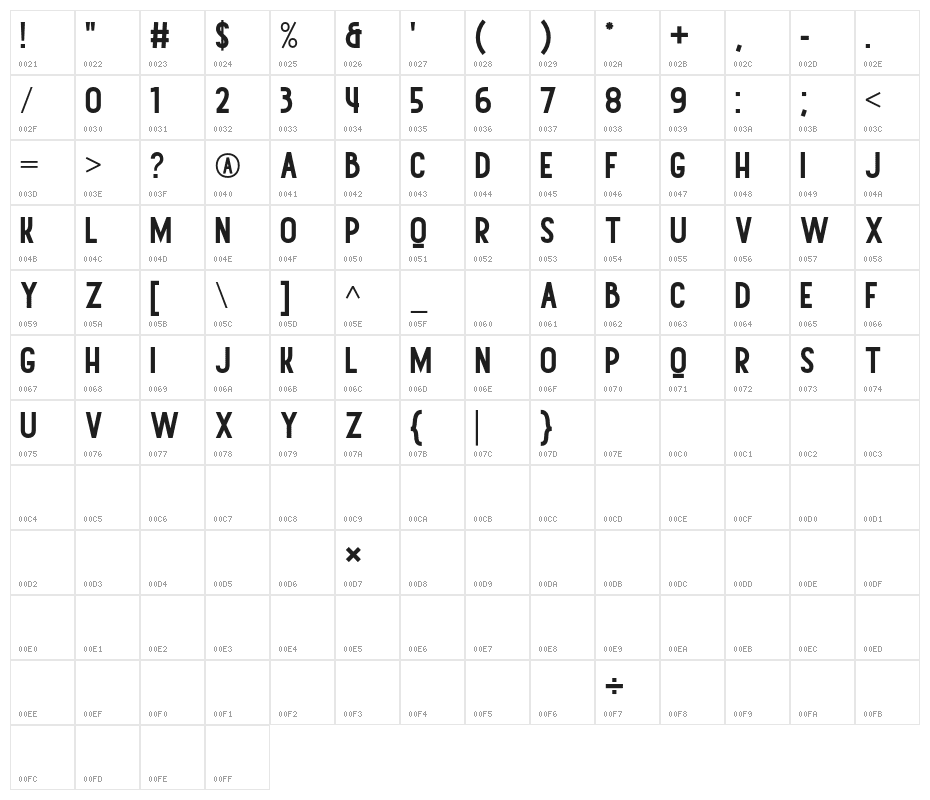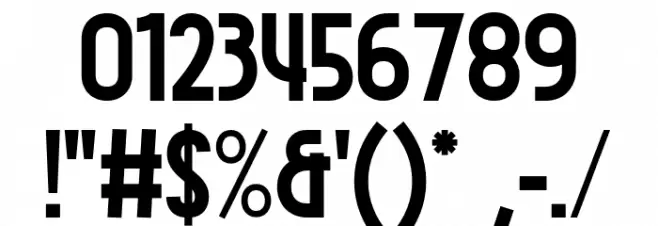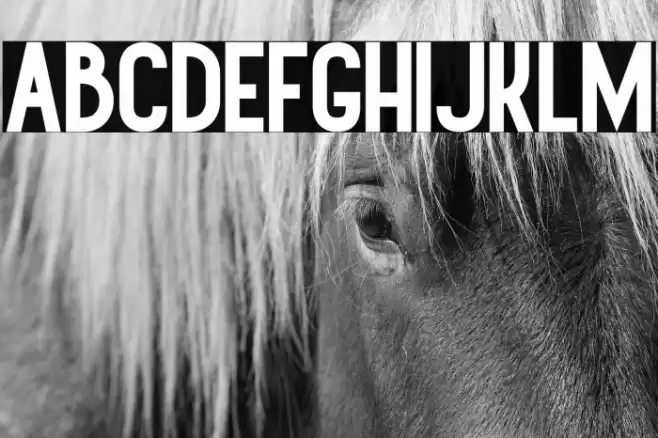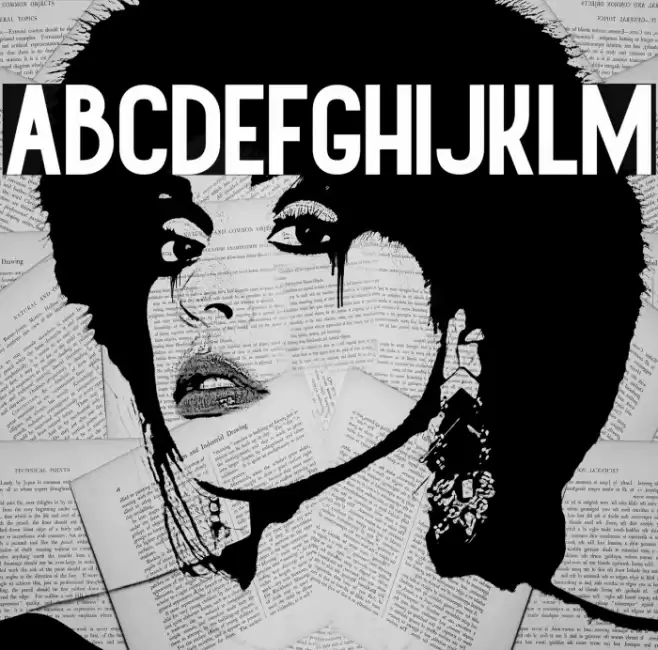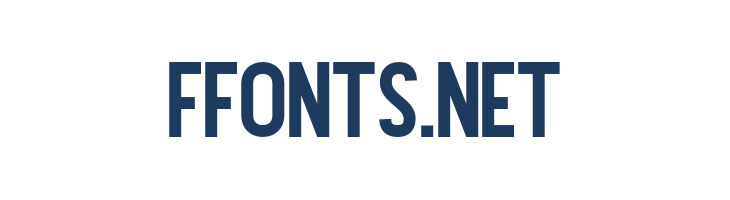
Canterpids-Sans Font
This font features a bold and modern sans-serif design, characterized by clean lines and a strong presence. The uppercase and lowercase letters maintain a consistent width, contributing to a uniform appearance. The numerals are clear and easily distinguishable, making them suitable for various applications. Special characters are well-defined, enhancing the font's versatility. The overall style is contemporary, making it ideal for projects that require a sleek and professional look.
| Use Case | Headlines, Logos, Advertising |
| Proposed Projects | Ideal for branding, advertising, headlines, and digital media projects that require a modern and impactful typeface. |